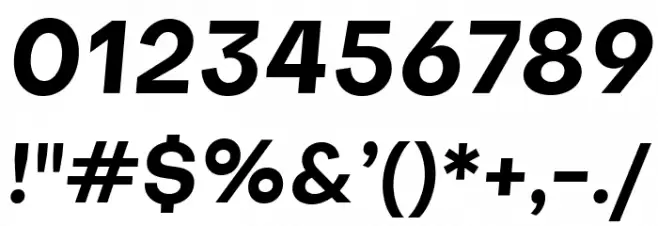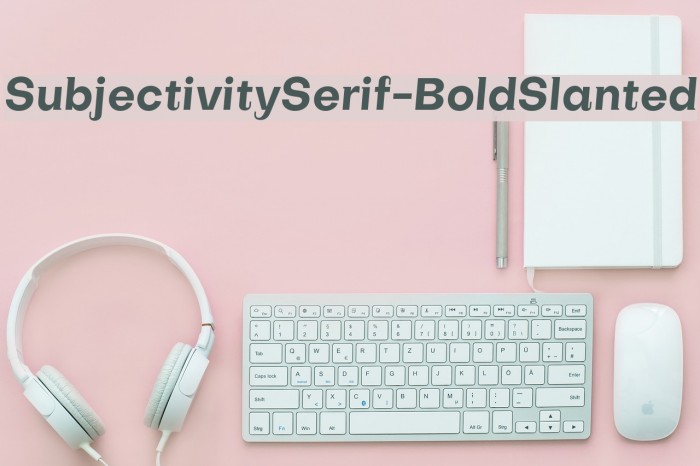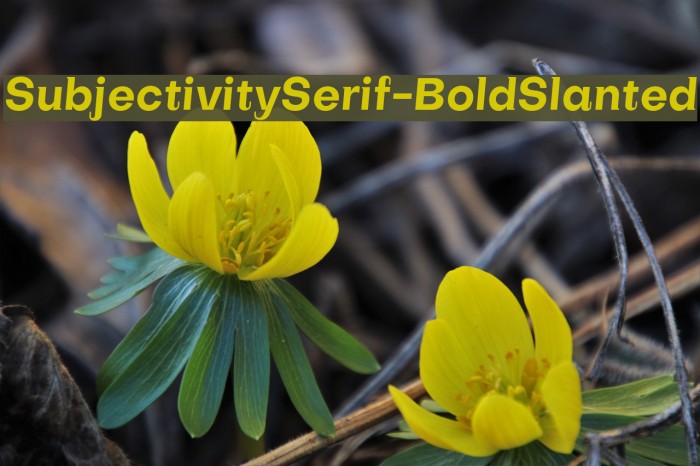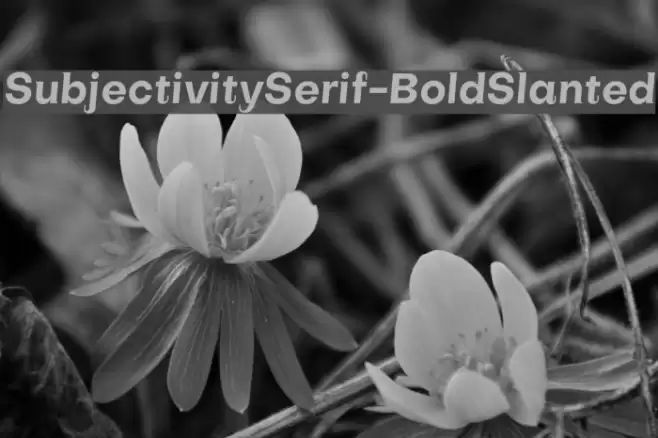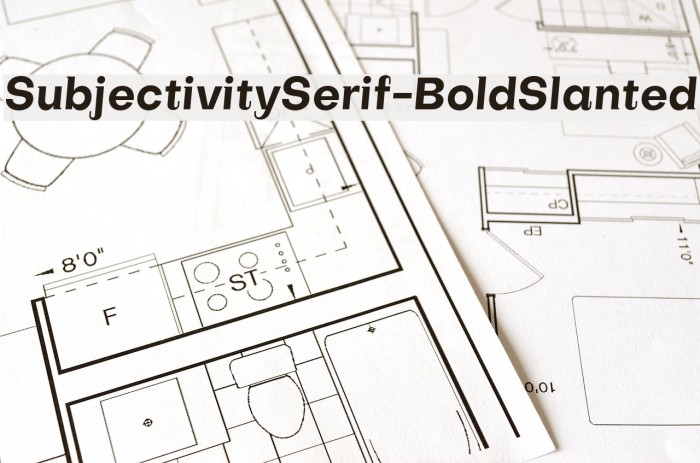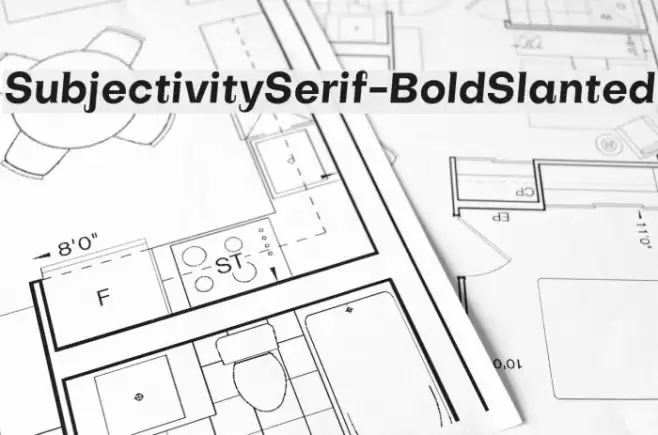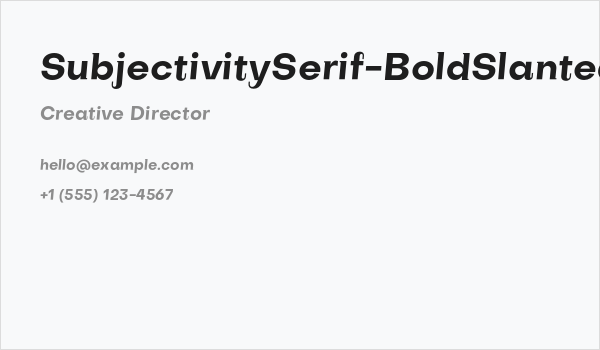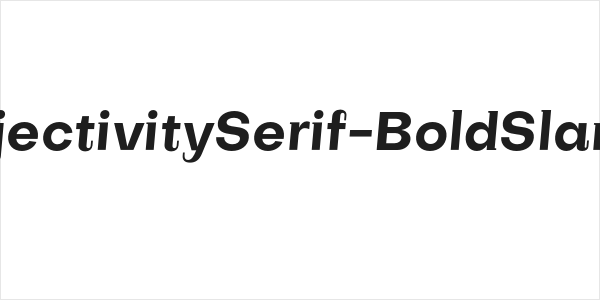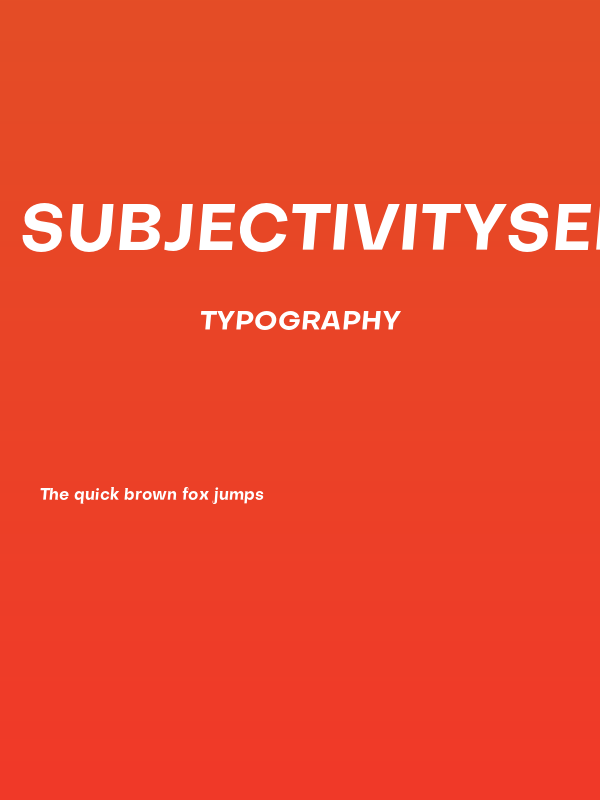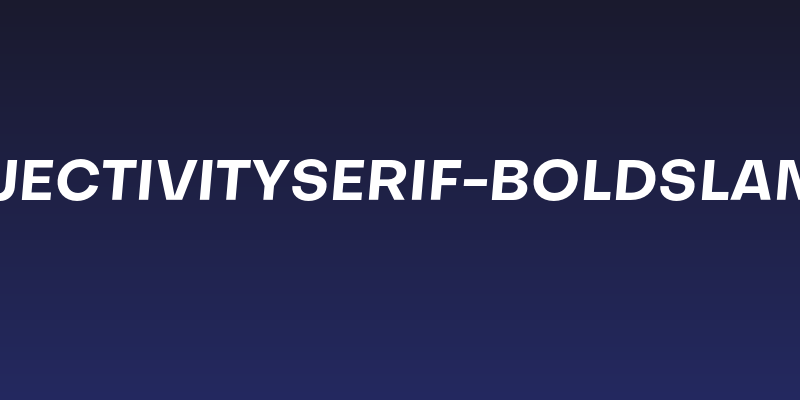
SubjectivitySerif-BoldSlanted Font
SubjectivitySerif-BoldSlanted Description
This font exhibits a bold and slanted style, characterized by its strong presence and dynamic appearance. The uppercase and lowercase letters are designed with a consistent slant, giving a sense of movement and modernity. The numerals and special characters maintain this slant, ensuring uniformity across all glyphs. The strokes are thick, providing a high contrast that enhances readability and impact. This font's boldness and slant make it suitable for attention-grabbing headlines and titles, while its clean lines ensure clarity in various applications.
| Proposed Projects | Ideal for branding, advertising, posters, and any project requiring a strong, modern typeface. |